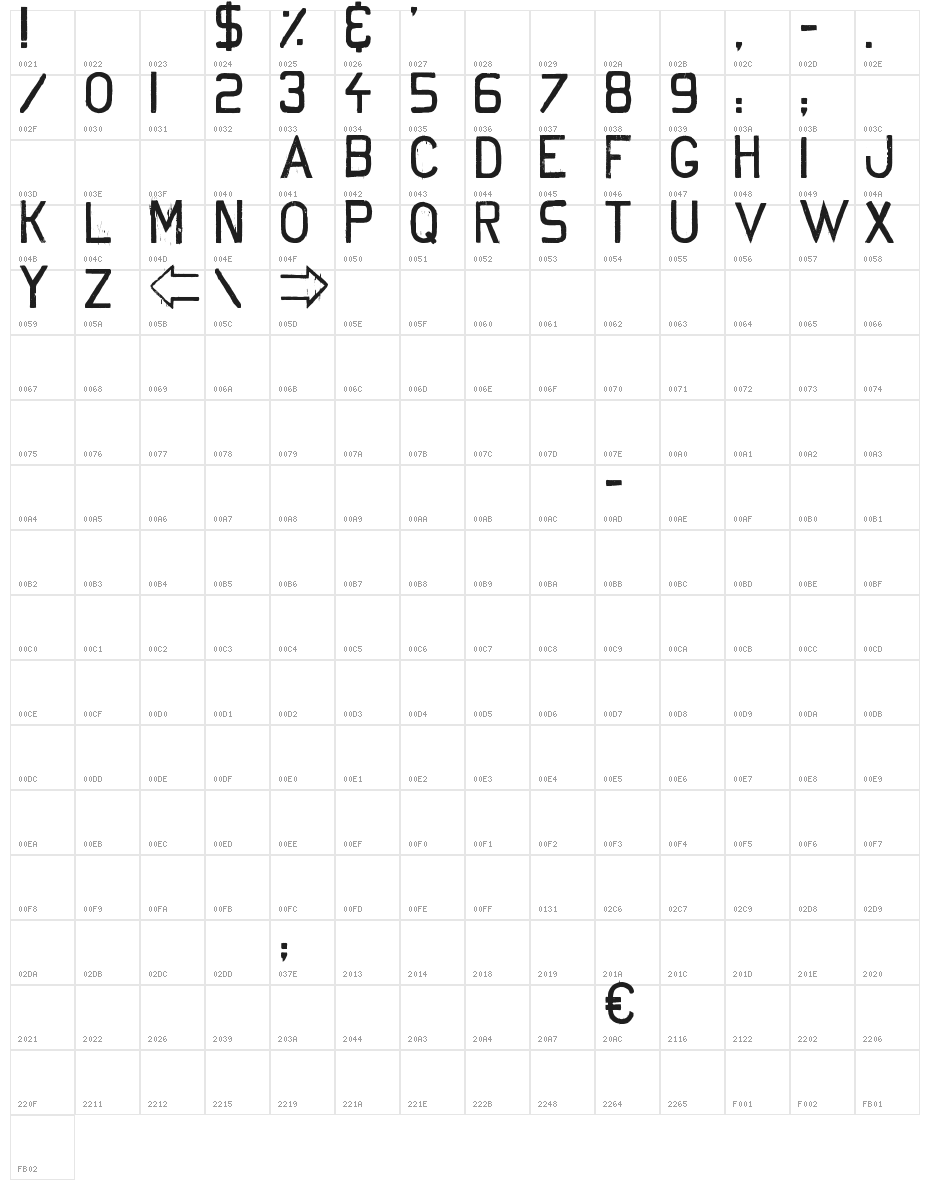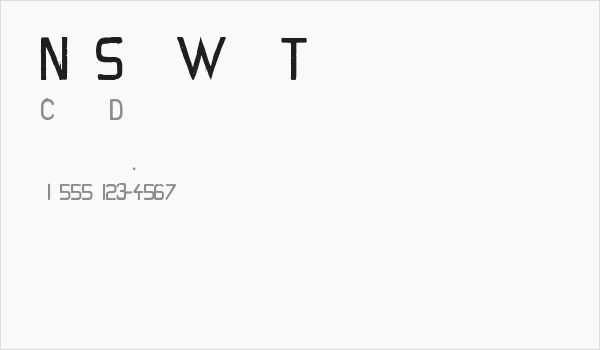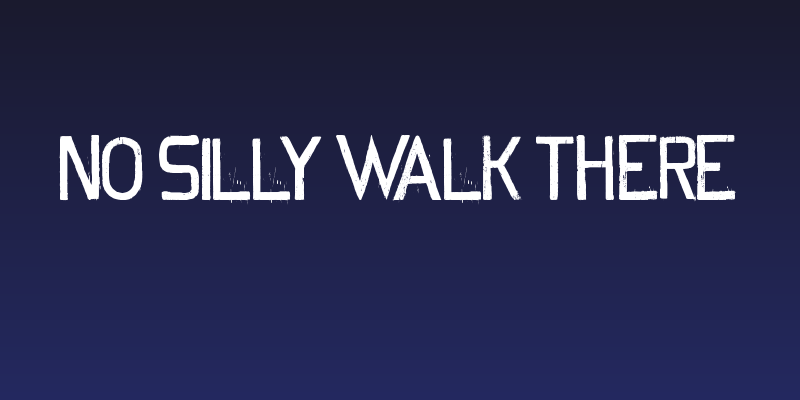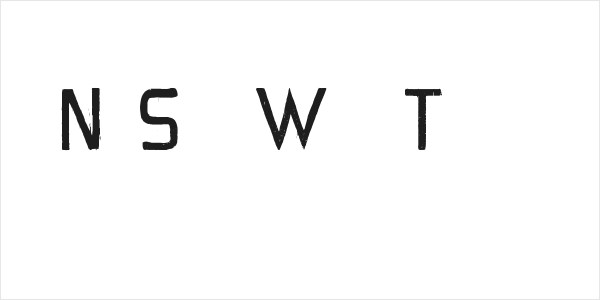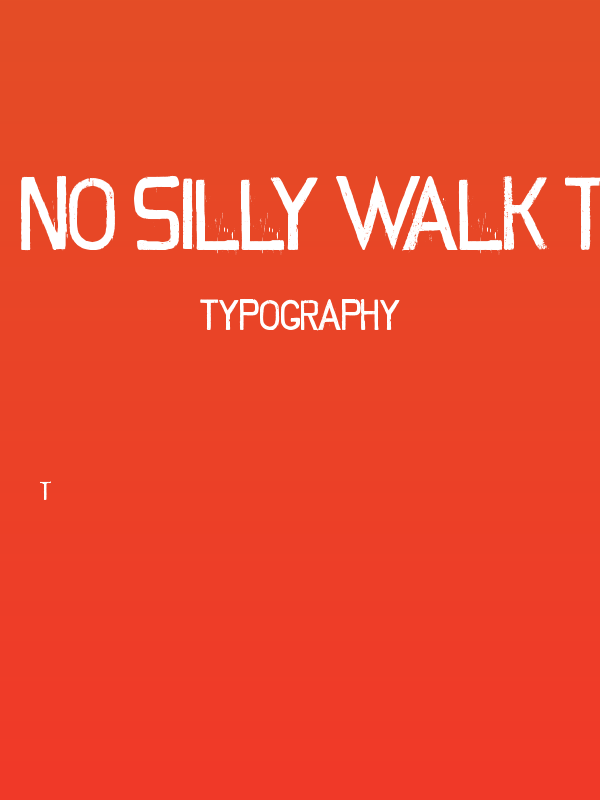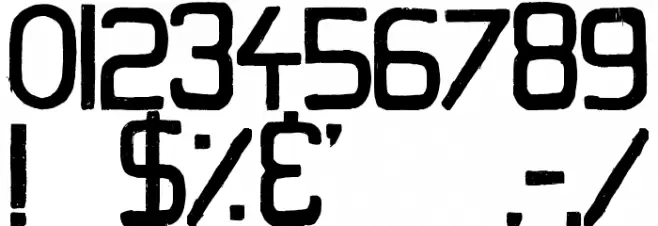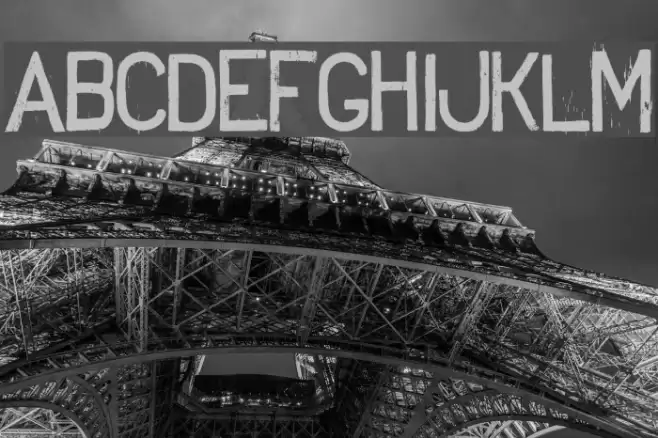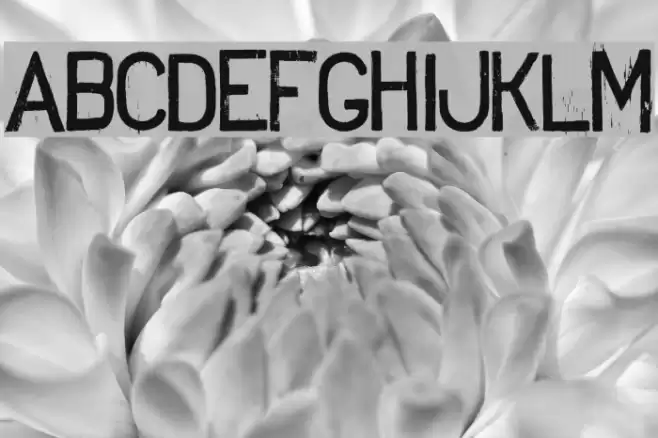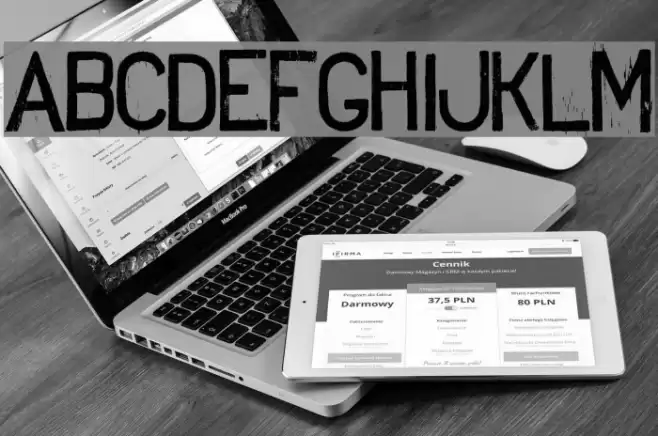
No Silly Walk There Font
This font exhibits a bold and rugged style with a distressed, textured appearance. The uppercase letters are uniformly structured, maintaining a consistent height and width, which contributes to a strong and impactful visual presence. The numerals and special characters follow the same design ethos, ensuring a cohesive look across all characters. The font's rough edges and uneven strokes give it a hand-crafted, vintage feel, making it ideal for projects that require a touch of authenticity and character. Its boldness ensures readability, while the unique texture adds visual interest.